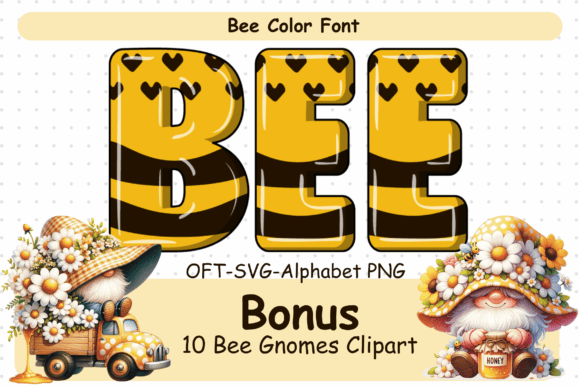
Bee Font
Bee Doodle Alphabet is a cute and colorful color font. It embodies playfulness and authenticity and is the perfect choice for any children activity or school project. Add this chunky lettered font to your designs and notice how it makes them come alive!